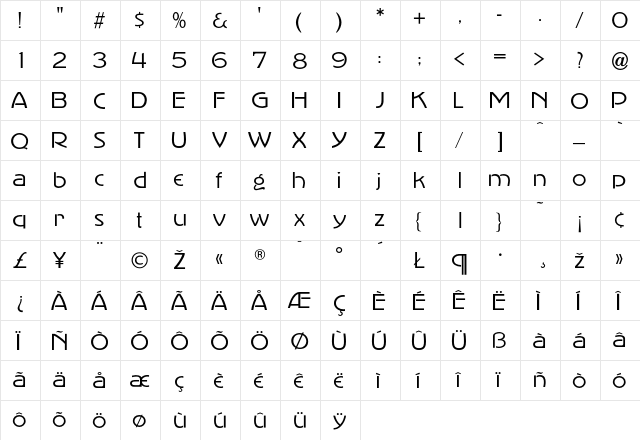
AdvertisersGothicLight Regular
Design Context for AdvertisersGothicLight Typeface
AdvertisersGothicLight takes a clean, functional approach — its unadorned letterforms prioritise legibility and work reliably across screen and print environments. Its slender proportions lend an understated elegance to any composition.
A natural fit for high-end product packaging, luxury brand identities, and refined web typography.
Font Pairing: Pair AdvertisersGothicLight with a medium or bold serif for headlines — the weight contrast creates an elegant, high-end feel.
Pro Tip: Use AdvertisersGothicLight with generous tracking and line-height for the most luxurious effect — light sans-serifs reward spacious, considered layouts.